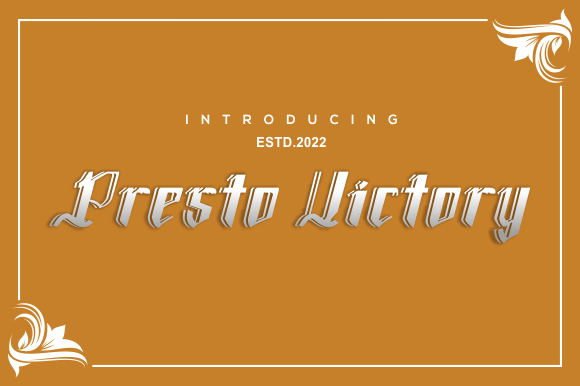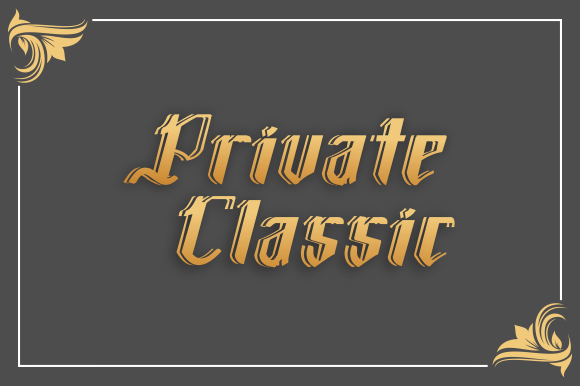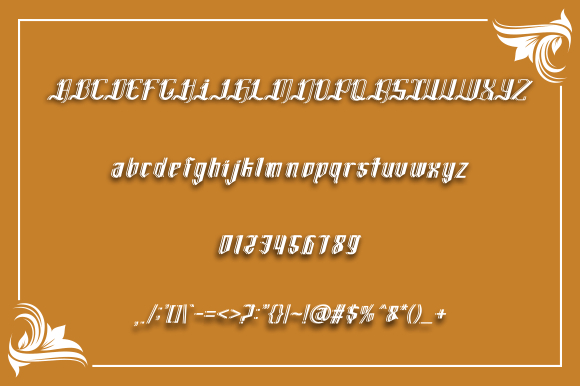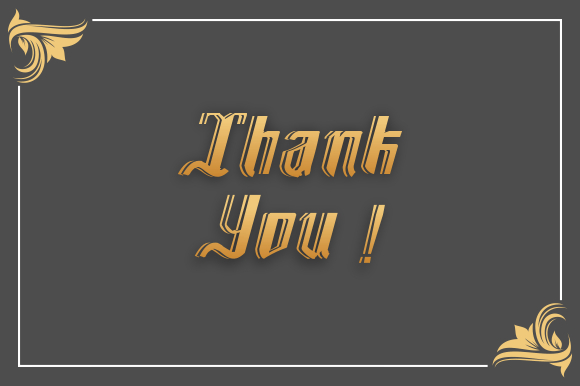
Presto Victory Font
About Presto Victory Font
Presto Victory is a distinct blackletter font that will impress with its stylish features. Use it for product packaging, branding, or other projects that need bold and daring typography!